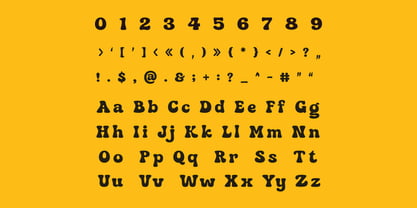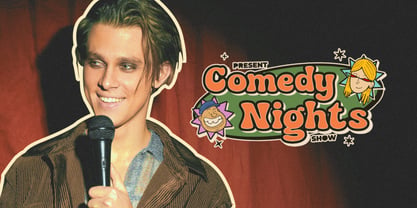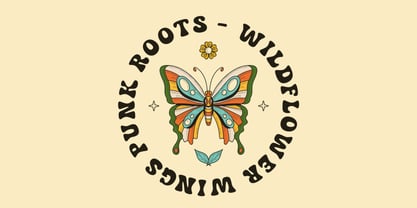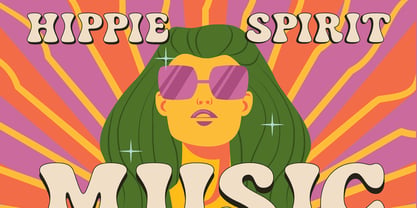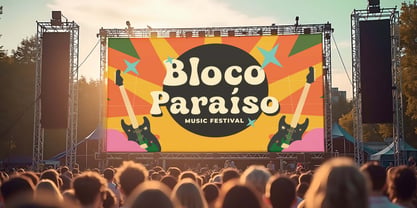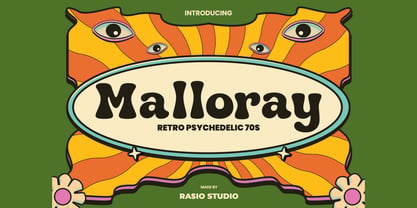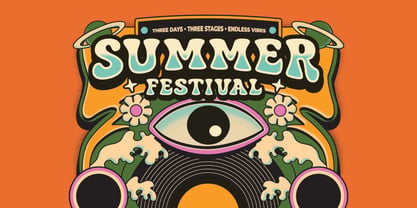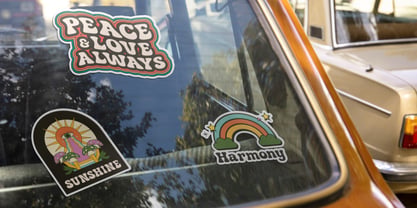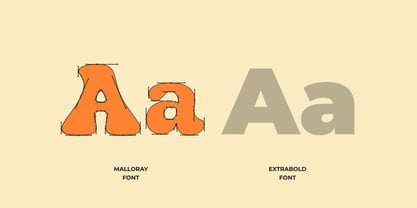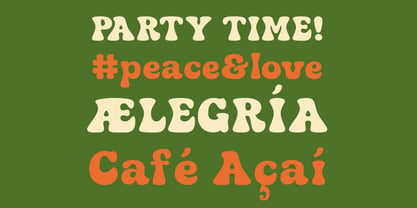
Malloray
by Rasio Studio
The Malloray Font Family was designed by Fajar Indra and published by Rasio Studio. Malloray contains 1 styles. More about this family
Malloray is a bold retro psychedelic display font inspired by the vibrant visual culture of the 1970s. Its thick, soft curves and playful letterforms create a groovy and nostalgic aesthetic that instantly captures the spirit of vintage psychedelic design. Malloray is perfect for retro-themed design projects that need expressive and nostalgic typography. It works beautifully for vintage posters, music festival graphics, album covers, retro branding, packaging design, social media visuals, and creative editorial layouts.
Designers: Fajar Indra
Foundry: Rasio Studio